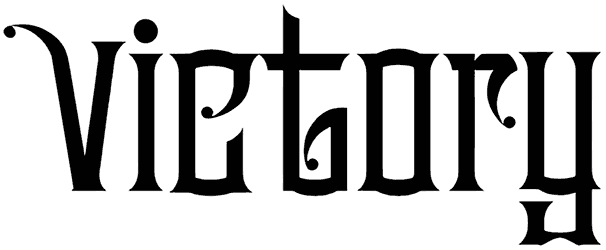
Victory Font
With a royal and noble style, you can be the victor in the competition with similar designs and satisfy your viewers. This Victorian font, named Victory, consists of captivating lettering that can be matched with classic…
With a royal and noble style, you can be the victor in the competition with similar designs and satisfy your viewers. This Victorian font, named Victory, consists of captivating lettering that can be matched with classic or modern layouts. There is no offer for punctuation marks, but the Victory font will serve as an ace item for lots of projects, namely movies, games, branding, and whatnot.